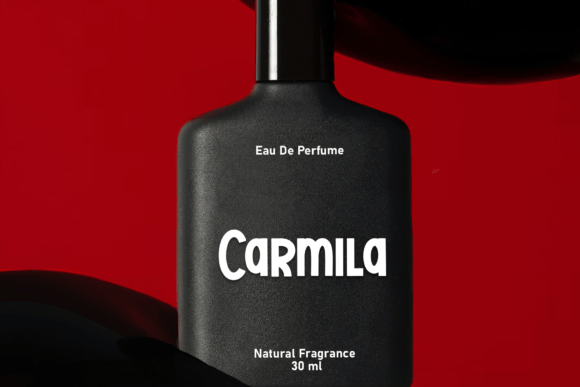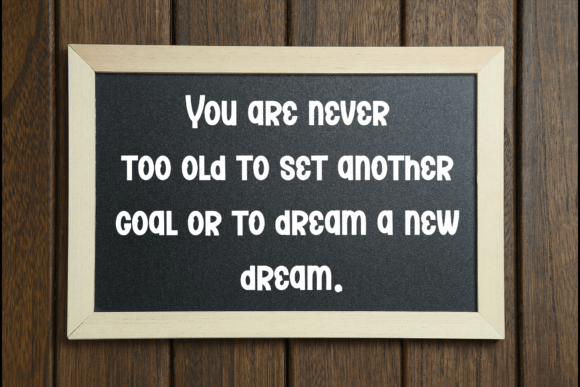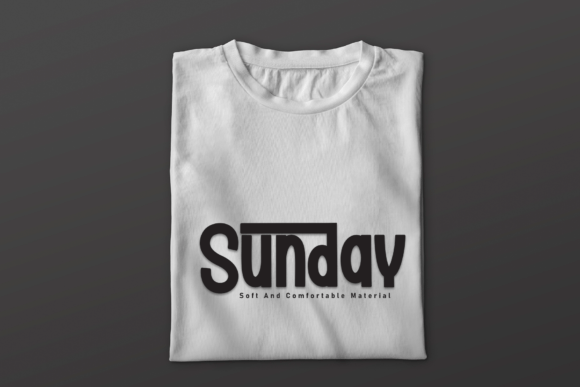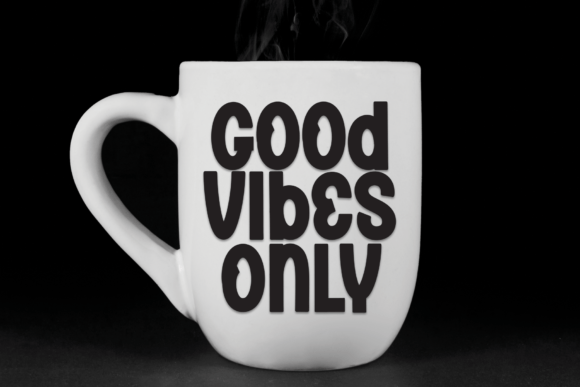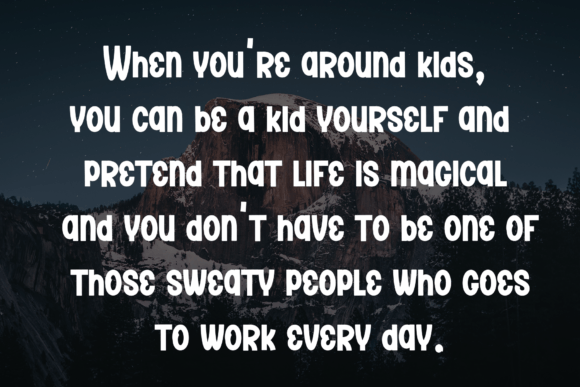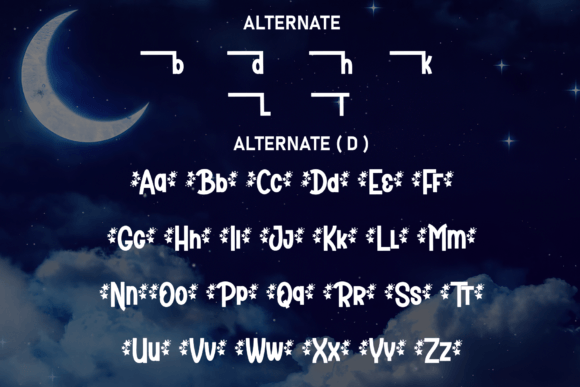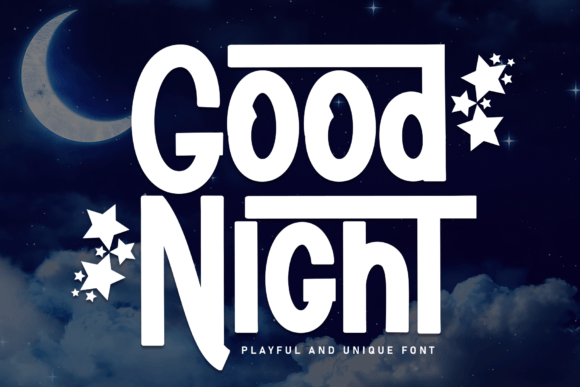
Introducing Good Night Font: A Sweet and Friendly Handwritten Delight
Are you a designer or crafter looking for a font that can add a touch of warmth and personality to your projects? Look no further than Good Night Font, a sweet and friendly handwritten font that’s perfect for a wide range of designs. With its natural and unique style, Good Night Font is incredibly versatile and can be used in everything from invitations and greeting cards to branding and packaging.
Good Night Font is a beautifully crafted font that’s designed to make your designs stand out. Its handwritten style gives it a personal and approachable feel, making it perfect for designers and crafters who want to add a touch of warmth and personality to their work. Whether you’re creating invitations, greeting cards, or social media graphics, Good Night Font is the perfect choice.
What Makes Good Night Font So Special?
So, what makes Good Night Font so special? Here are just a few things that set it apart:
- Natural and Unique Style: Good Night Font has a natural and unique style that’s perfect for designers and crafters who want to add a touch of personality to their work.
- Versatile: Good Night Font is incredibly versatile and can be used in a wide range of designs, from invitations and greeting cards to branding and packaging.
- Handwritten Style: The handwritten style of Good Night Font gives it a personal and approachable feel that’s perfect for designers and crafters who want to add a touch of warmth to their work.
- Easy to Read: Good Night Font is easy to read, making it perfect for designs where you want to communicate a message clearly and effectively.
How to Use Good Night Font in Your Designs
Good Night Font is easy to use in your designs, and here are a few tips to get you started:
- Pair it with Other Fonts: Good Night Font pairs well with other fonts, so don’t be afraid to experiment with different combinations to find the perfect look for your design.
- Use it for Headings and Titles: Good Night Font is perfect for headings and titles, where its unique and natural style can really make your design stand out.
- Add it to Your Branding: If you’re looking for a font to use in your branding, Good Night Font is a great choice. Its friendly and approachable style makes it perfect for businesses that want to connect with their customers on a personal level.
The Benefits of Using Good Night Font
There are many benefits to using Good Night Font in your designs, including:
- Unique and Eye-Catching Designs: Good Night Font allows you to create unique and eye-catching designs that will really make your work stand out.
- Personal and Approachable Style: The handwritten style of Good Night Font gives it a personal and approachable feel that’s perfect for designers and crafters who want to add a touch of warmth to their work.
- Easy to Read and Understand: Good Night Font is easy to read and understand, making it perfect for designs where you want to communicate a message clearly and effectively.
In conclusion, Good Night Font is a sweet and friendly handwritten font that’s perfect for designers and crafters who want to add a touch of warmth and personality to their work. With its natural and unique style, Good Night Font is incredibly versatile and can be used in a wide range of designs. Whether you’re creating invitations, greeting cards, or social media graphics, Good Night Font is the perfect choice. So why not give it a try and see the difference it can make in your designs?
The only limit to what you can create with Good Night Font is your imagination! So don’t be afraid to experiment and try new things – with Good Night Font, the possibilities are endless.